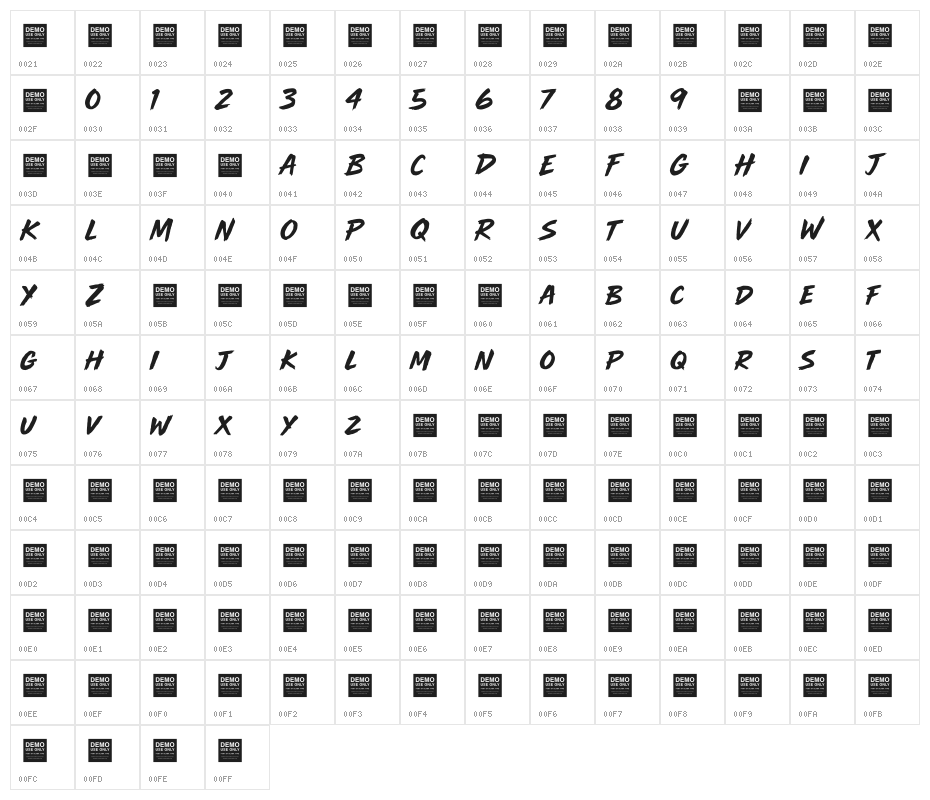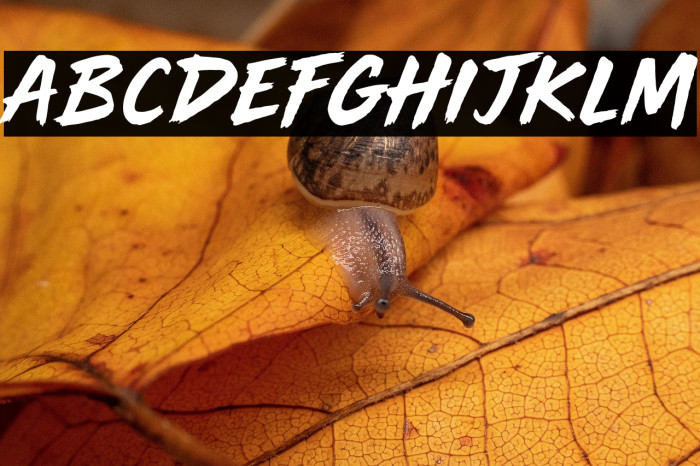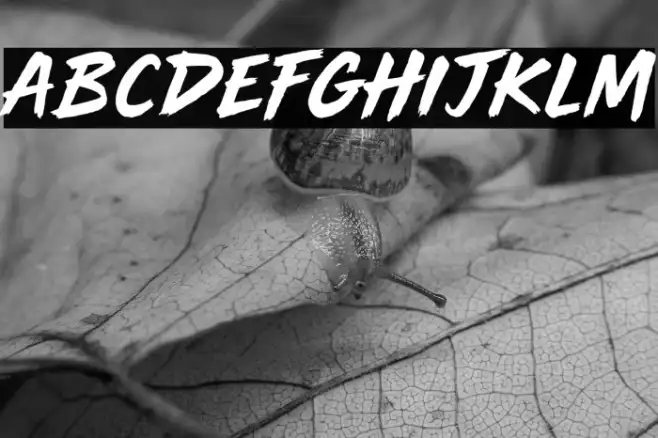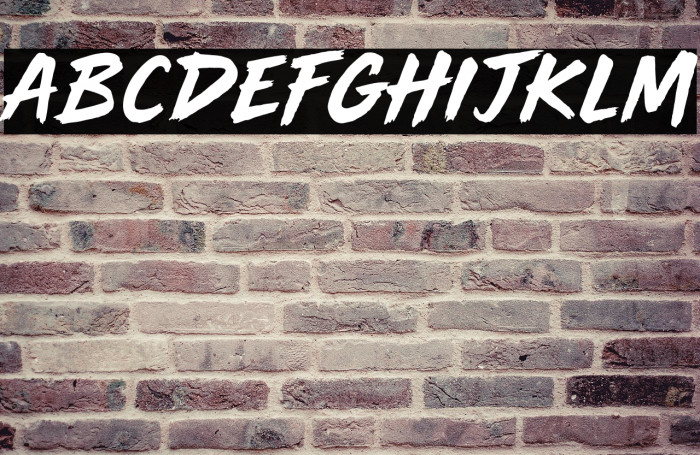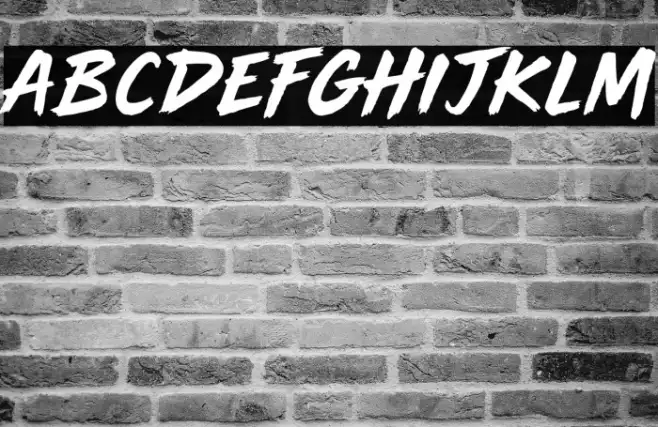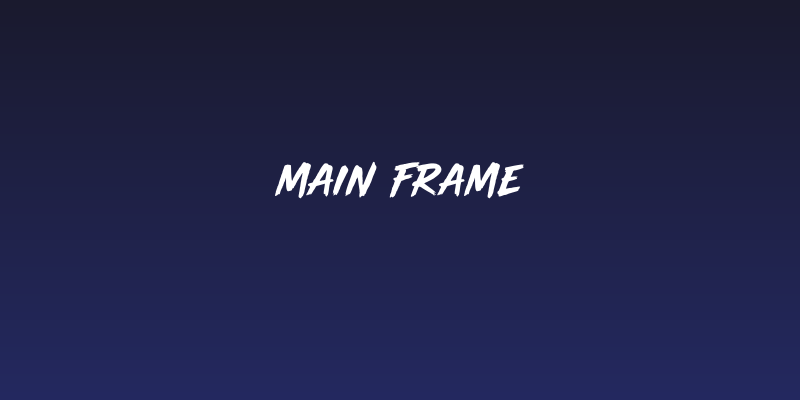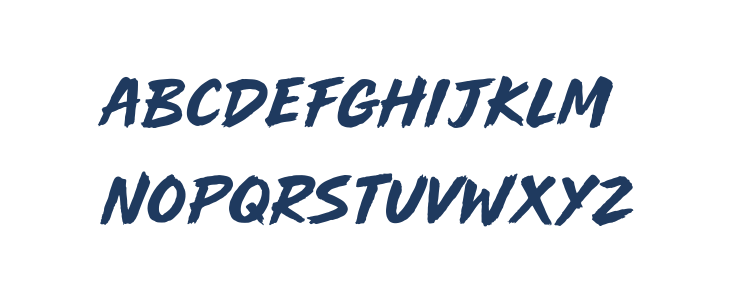
Main Frame Font
Main Frame Description
This font features a bold and dynamic brush script style, characterized by its thick, energetic strokes and slightly slanted letters. The uppercase and lowercase letters maintain a consistent flow, with a hand-painted appearance that adds a sense of movement and vitality. The numbers follow the same stylistic approach, ensuring uniformity across all characters. This font's design is ideal for creating impactful and eye-catching text, with a modern yet artistic flair. The overall impression is one of creativity and expressiveness, making it suitable for various design projects.